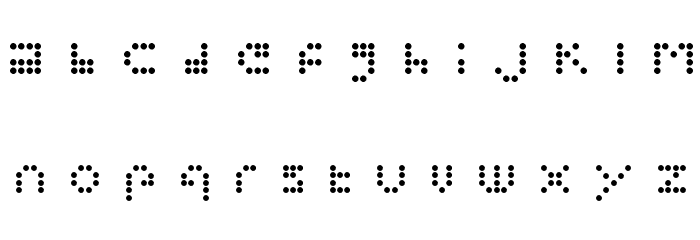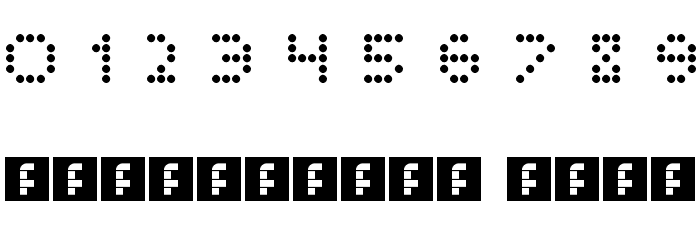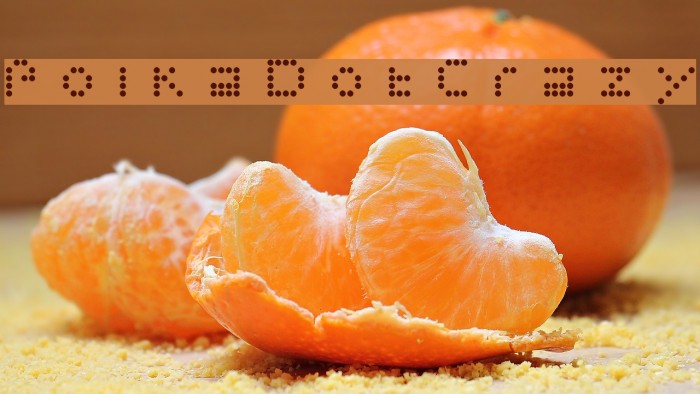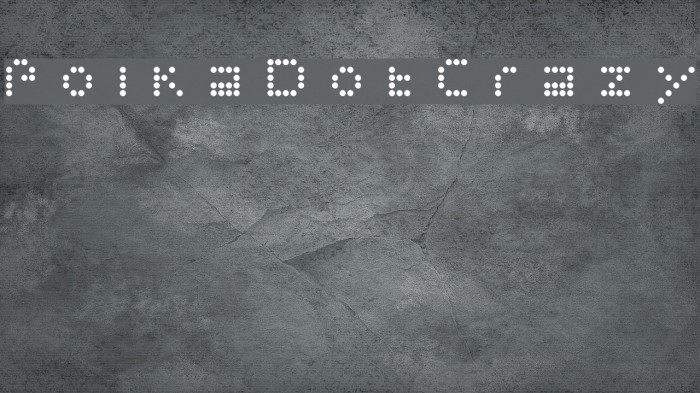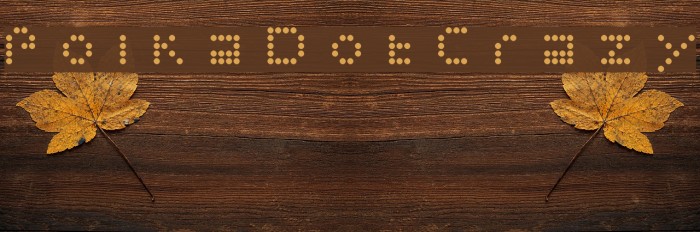
PolkaDotCrazy Font
This playful and unique font is characterized by its dotted pattern, where each character is formed entirely by a series of evenly spaced dots. The design gives a whimsical and lighthearted feel, making it ideal for creative and informal projects. The uniformity of the dots ensures readability while adding a decorative touch. The font maintains consistent spacing and size across all characters, providing a cohesive look. Its distinct style is eye-catching and memorable, perfect for projects that aim to stand out.
A playful, dotted font with a whimsical and decorative style.
- Proposed Projects: Ideal for children's books, party invitations, playful branding, and creative posters.